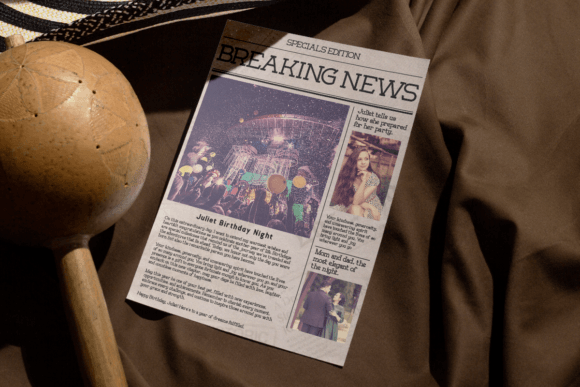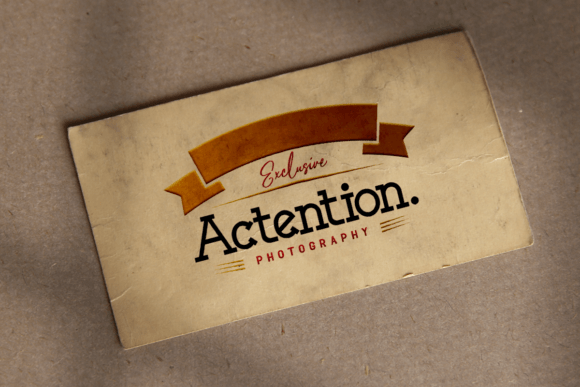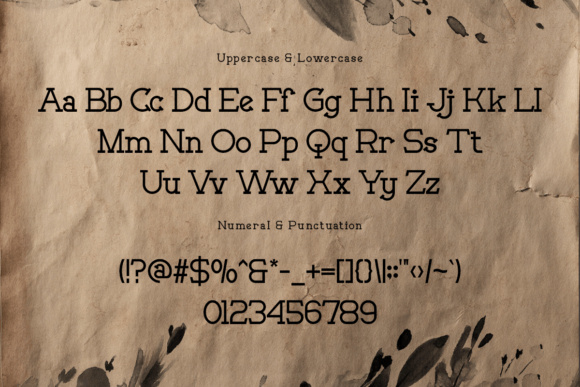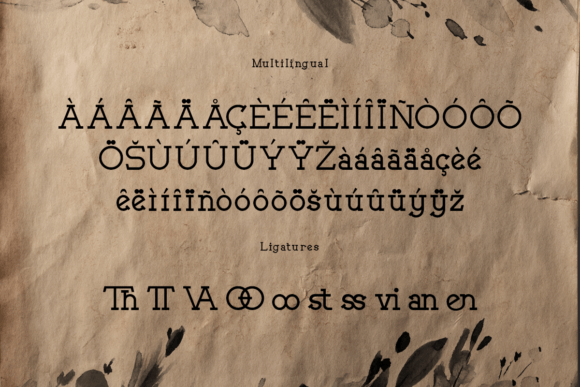
Introduction to Movein Font
Have you ever been working on a creative project, pouring your heart and soul into it, only to realize that the right font is missing to bring it all together? This is where the perfect design resource comes into play – a font that exudes sophistication, elegance, and modern style. Enter Movein Font, a typeface that has been making waves in the design community for its unique blend of classic and contemporary elements.
For designers, finding the right font can be a daunting task. But with Movein Font, you can rest assured that your text will stand out with clarity and class. Whether you’re working on a branding project or an editorial piece, this versatile serif font is sure to elevate your design to the next level. And the best part? It’s available for free download, complete with a transparent background, making it a high-quality addition to any design project.
Key Features of Movein Font
- Unique, modern design perfect for creative and innovative projects
Honest Review: Movein Font
As a designer, I’m always on the lookout for high-quality design resources that can elevate my creative projects. The Movein Font is one such resource that caught my attention, and I’m excited to share my honest review with you.
- ✨ High-quality design: The Movein Font has a sleek, modern design that’s perfect for a variety of creative projects, from digital art to print materials.
- ⚠️ Limited character set: The Movein Font has a limited character set, which may not be suitable for projects that require a wide range of characters.
- ⚠️ Not ideal for small text: The font’s design is best suited for larger text sizes, and may not be ideal for small text or body copy.
Overall, I’m impressed with the Movein Font’s high-quality design and versatility. While it has some limitations, it’s a valuable resource for designers who need a modern, sleek font for their creative projects.
Movein Font is a high-quality design resource ideal for creative projects that require a unique and eye-catching typography. With its transparent background, this font can be easily integrated into various design tools and software.
Movein Font is ideal for creative projects such as: